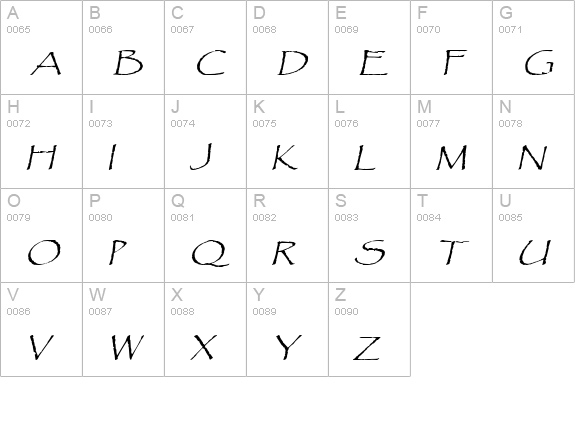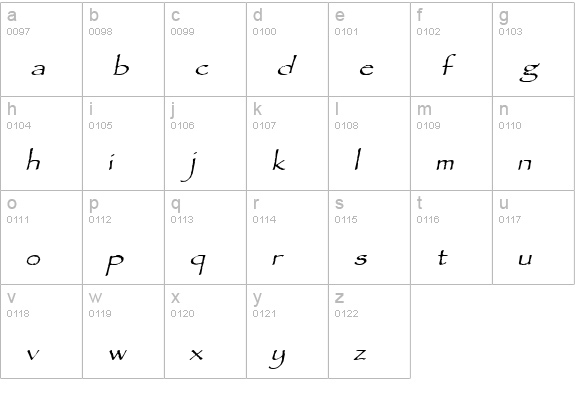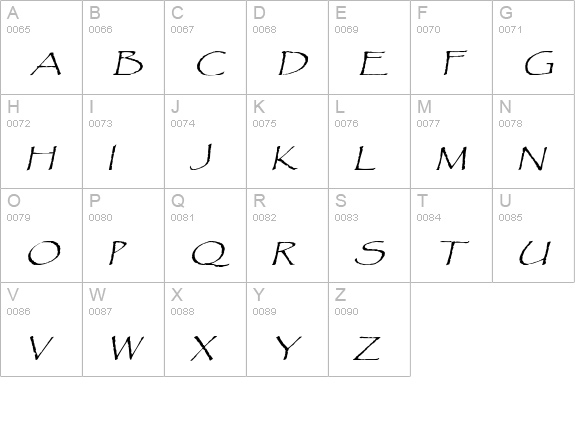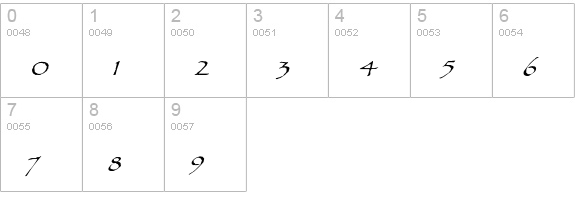
Chalk-Extended Italic Font Details
Chalk-Extended Italic is a distinctive, extended-width, italic variant in the Chalk typeface family \xE2\x80\x94 well suited to design and typography projects.
Chalk-Extended Italic font is a stylish and modern typeface that brings a touch of elegance to any design project. Its sleek and slanted italic style gives a unique flair to text, making it perfect for headings, titles, and branding materials. The extended character set ensures versatility and readability across various applications. What makes this font even more appealing is that it is available for free download at FontsMarket.com. This means you can easily access and use this beautiful typeface in your projects without any cost. Whether you are a designer, student, or hobbyist, Chalk-Extended Italic font is a valuable addition to your font collection. Don't miss out on this opportunity to enhance your designs with this free and stylish font.